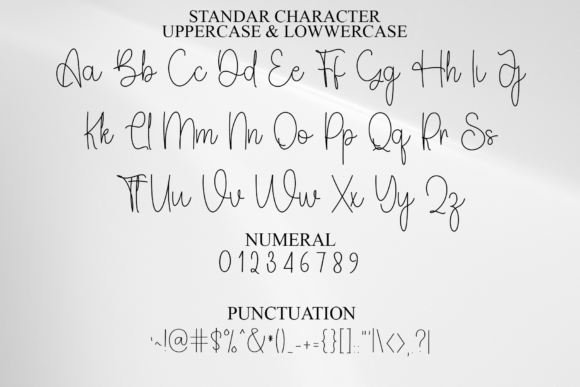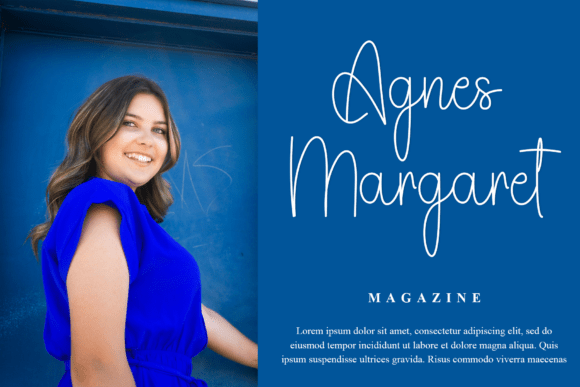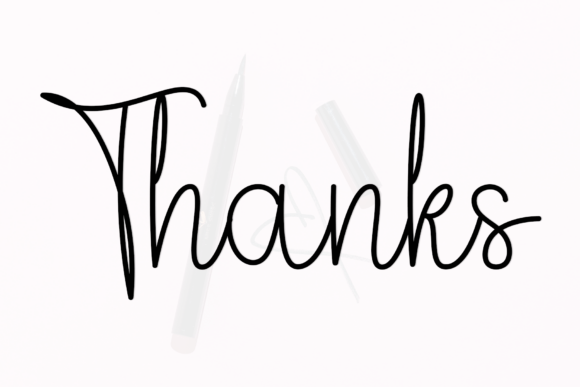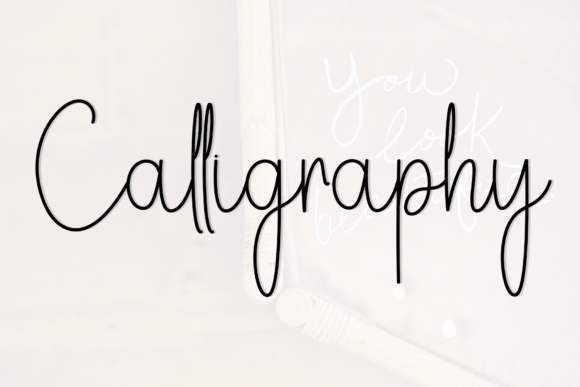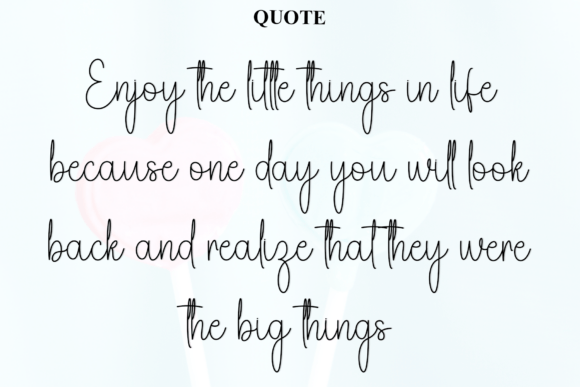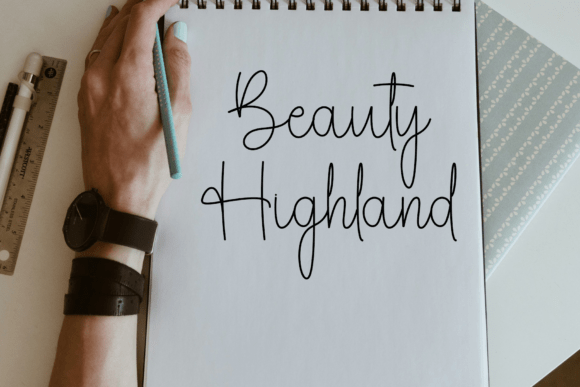
The Magic of Handwritten Touch: Discovering Beauty Handwriting Font
Do you remember the feeling of receiving a handwritten letter from a loved one? The way the words flowed across the page, the unique strokes and flourishes that made it truly special? That’s the kind of magic that Beauty Handwriting Font brings to your designs. This beautiful and eye-catching font is designed to give your projects a soft, unique touch that sets them apart from the rest.
With its distinctive strokes and versatile character, Beauty Handwriting Font is perfect for design projects, crafts, and other creative works. Whether you’re a professional designer or a crafty enthusiast, this natural font style will enhance your designs, making them appealing to many audiences across different artistic and creative fields.
- Unique Characteristics: This font features a beautiful, cursive handwriting style with subtle flair and movement, perfect for adding a touch of elegance and sophistication to any design.
Designer Review: Beauty Handwriting Font
Overall, I’d say the Beauty Handwriting Font is a delightful addition to any project. ✨ The font’s elegant and cursive design makes it perfect for creating beautiful invitations, watermarks, or even social media graphics. I appreciate how it comes in various styles and sizes, allowing for a lot of flexibility in design.
One of the things that really stands out about this font is its versatility. ✨ It works well in both digital and print formats, making it a great choice for designers who work on a wide range of projects. Additionally, the font’s high-resolution capabilities ensure that it looks great on high-definition screens.
While I love the Beauty Handwriting Font, there are a few limitations to keep in mind:
- ⚠️ Limited character set: Unfortunately, the font doesn’t come with a comprehensive character set, which can make it difficult to use for extended text.
- ⚠️ May not be suitable for large blocks of text: Due to its cursive design, the font can be challenging to read when used in large quantities.
Overall, I’d give the Beauty Handwriting Font 4 out of 5 stars. While it has some limitations, its unique design and versatility make it a valuable addition to any designer’s toolkit.
The Beauty Handwriting Font is ideal for:
Crafting invitations and party decorations.
Creating social media posts and graphics.
Designing wedding stationery and other paper goods.